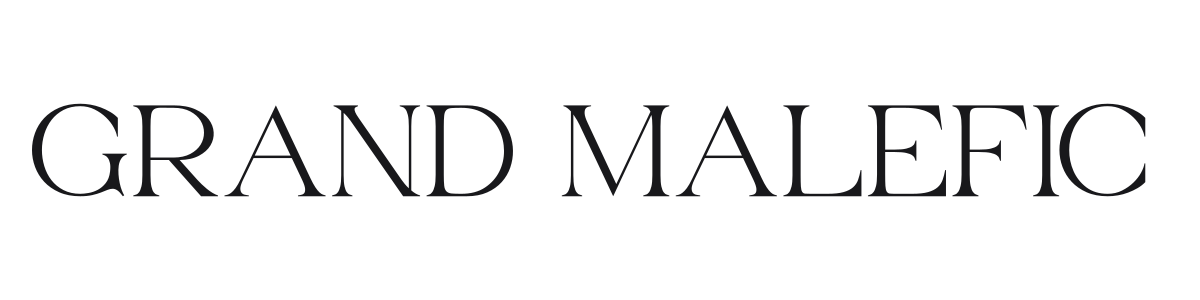
Grand Malefic
by Achmad Yani
Grand Malefic is a high-contrast modern serif rooted in the Didone tradition, with extreme variation between its hairline horizontals and bold vertical strokes. The generous width and airy letter spacing give it a distinctly editorial, haute couture presence. It thrives at large display sizes where those razor-thin serifs can breathe.